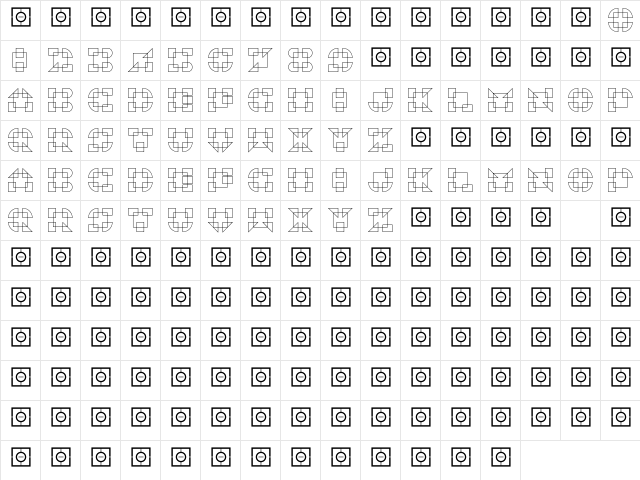
Complete AlphaGeometrique Outline glyph index. Displaying only characters natively supported by AlphaGeometrique Outline font.
AlphaGeometrique is built around its visual character rather than neutral utility - its distinctive forms are designed to make an impression at display sizes.
Font Pairing: Pair with a clean neutral sans-serif for body copy to let AlphaGeometrique's character lead without overwhelming the composition.
Pro Tip: Use AlphaGeometrique exclusively at display sizes - it was designed to be seen, not read at length. Let a neutral companion handle body copy.